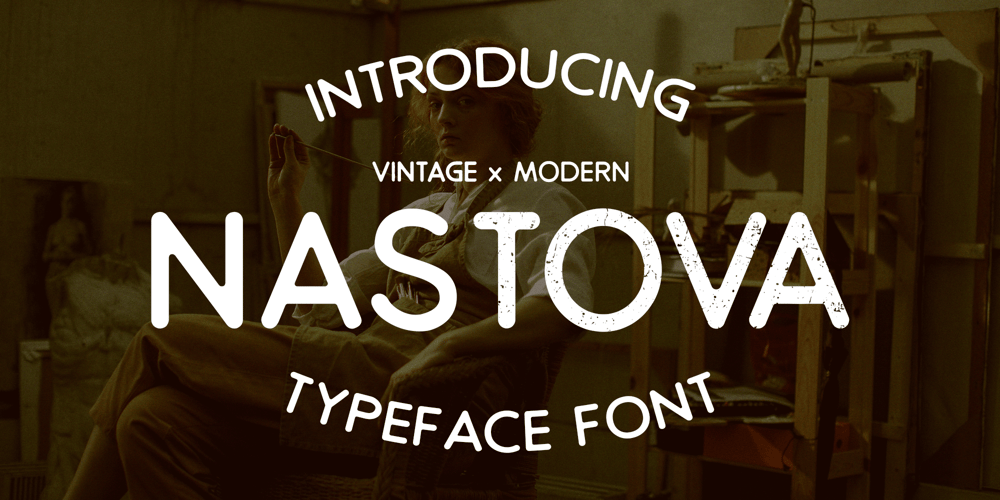
Nastova Font Family was designed by Mugi Raharjo and published by Nian Keun Studio. Nastova contains 2 styles and family package options. Nastova is a modern and vintage font made especially for those of you who like simple things. In some characters there are special alternatives to maintain the beauty of the font itself. You can also use this font on any media such as Logos, Banners, Design Graphics, Advertising, Product Packaging, to Films.Thank you for coming to my shop and enjoying other fonts.